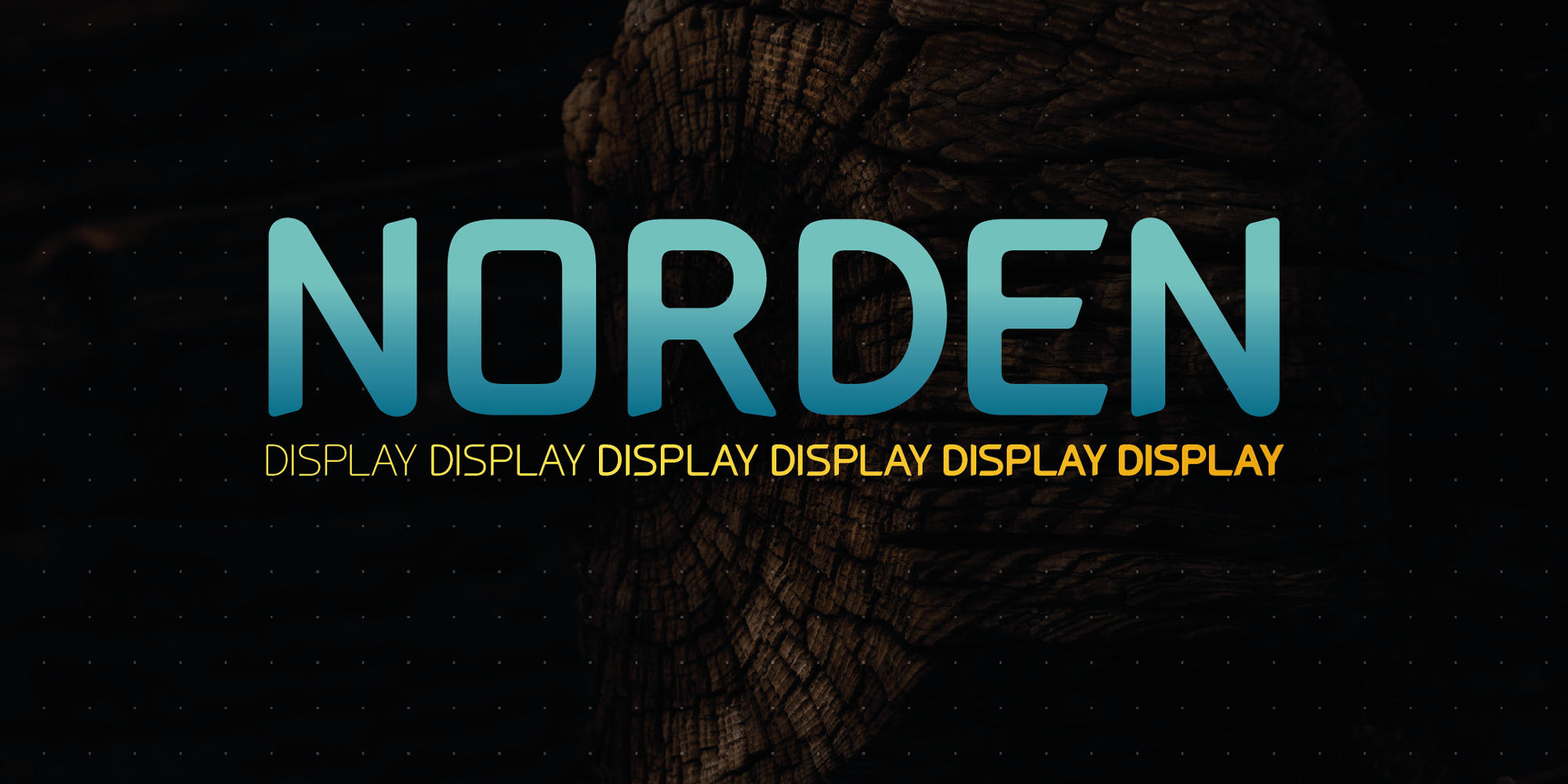
Norden Display Font is perfect for Scandinavian design studios, Nordic lifestyle brands, minimalist furniture showrooms, Arctic expedition marketing, contemporary museum exhibitions, modern architecture firms, clean product packaging, and sophisticated Nordic cultural campaigns.
This font is exciting because it embodies Nordic minimalism with Scandinavian elegance and Arctic sophistication. Norden Display Font features clean, geometric letterforms with Nordic precision that capture the essence of fjord landscapes and northern design philosophy, making it ideal for projects that require authentic Scandinavian character and minimalist appeal.
The Norden Display Font family includes regular, light, medium, bold, and condensed variants, along with Nordic alternates and Scandinavian ligatures that enhance its minimalist character. Each weight maintains the font's clean aesthetic while providing different levels of Nordic expression for various Scandinavian and minimalist design applications.
Whether you're developing authentic Nordic brands, creating compelling Scandinavian materials, or designing sophisticated Arctic campaigns, Norden Display Font Free Download delivers exceptional clarity and Nordic appeal. Its distinctive Scandinavian style makes it an excellent choice for designers seeking to add genuine Nordic sophistication and minimalist elegance to their projects. The font's versatility extends from Nordic furniture branding to Arctic tourism signage, ensuring consistent performance across all Scandinavian applications. With its precisely crafted letterforms and Nordic proportions, this typeface provides professional results that embody Nordic values and establish powerful Scandinavian presence with its unmistakable Arctic character and timeless minimalist sophistication.